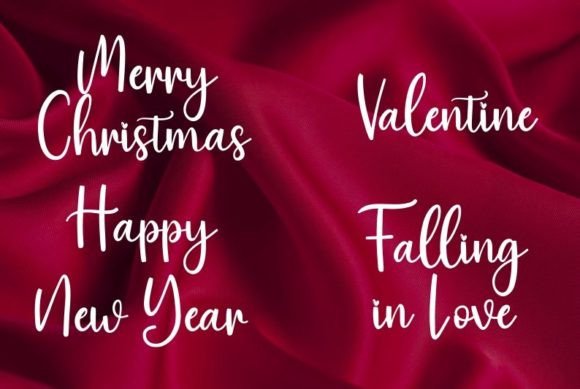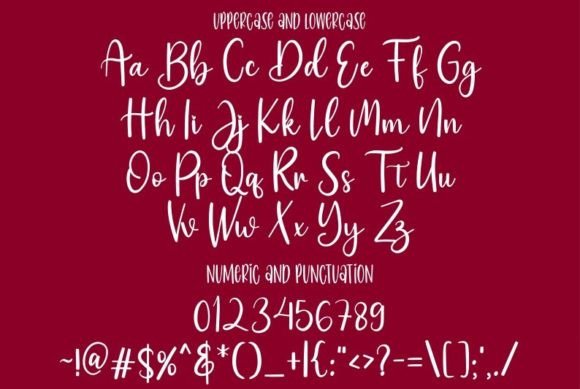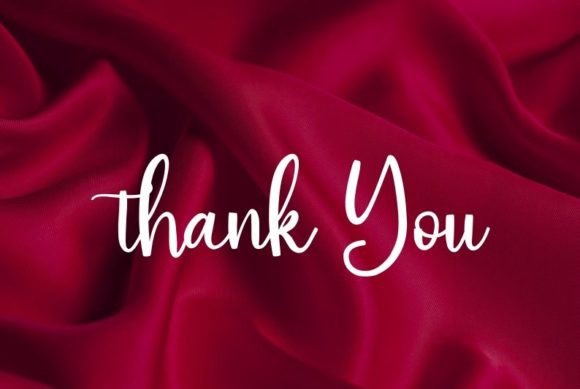
Introduction to Feminis Font
Feminis is a romantic and sweet calligraphy typeface with characters that dance along the baseline.
It will add a luxury spark to any design project that you wish to create .
Feminis Font offers exceptional quality and versatility, making it a valuable addition to your design toolkit. Whether you’re creating for personal projects or commercial use, Feminis Font delivers professional results.